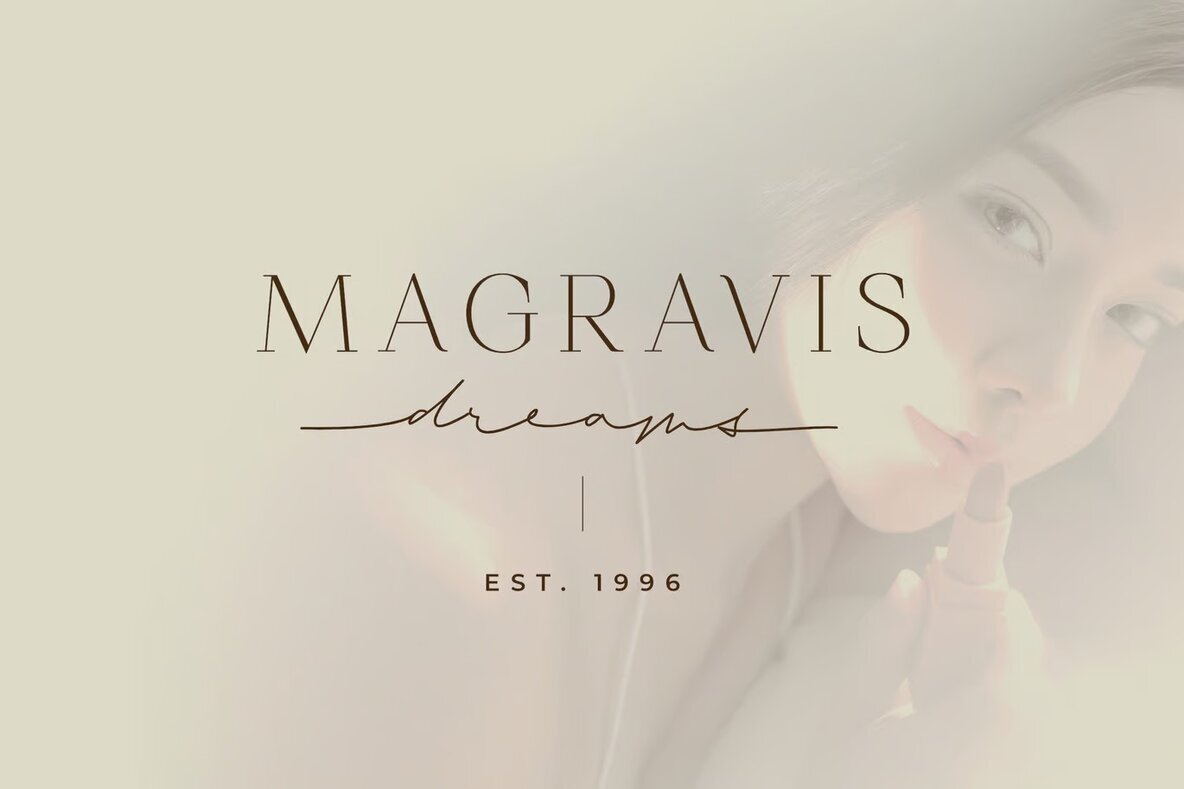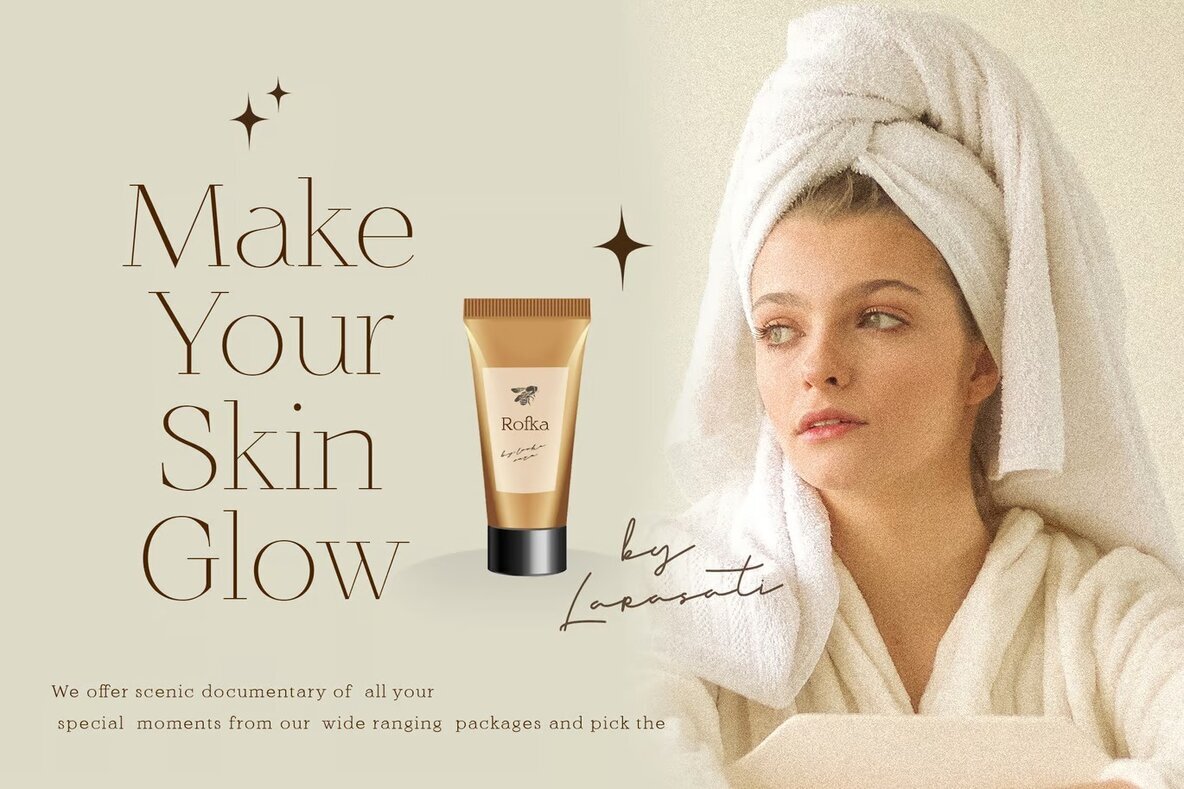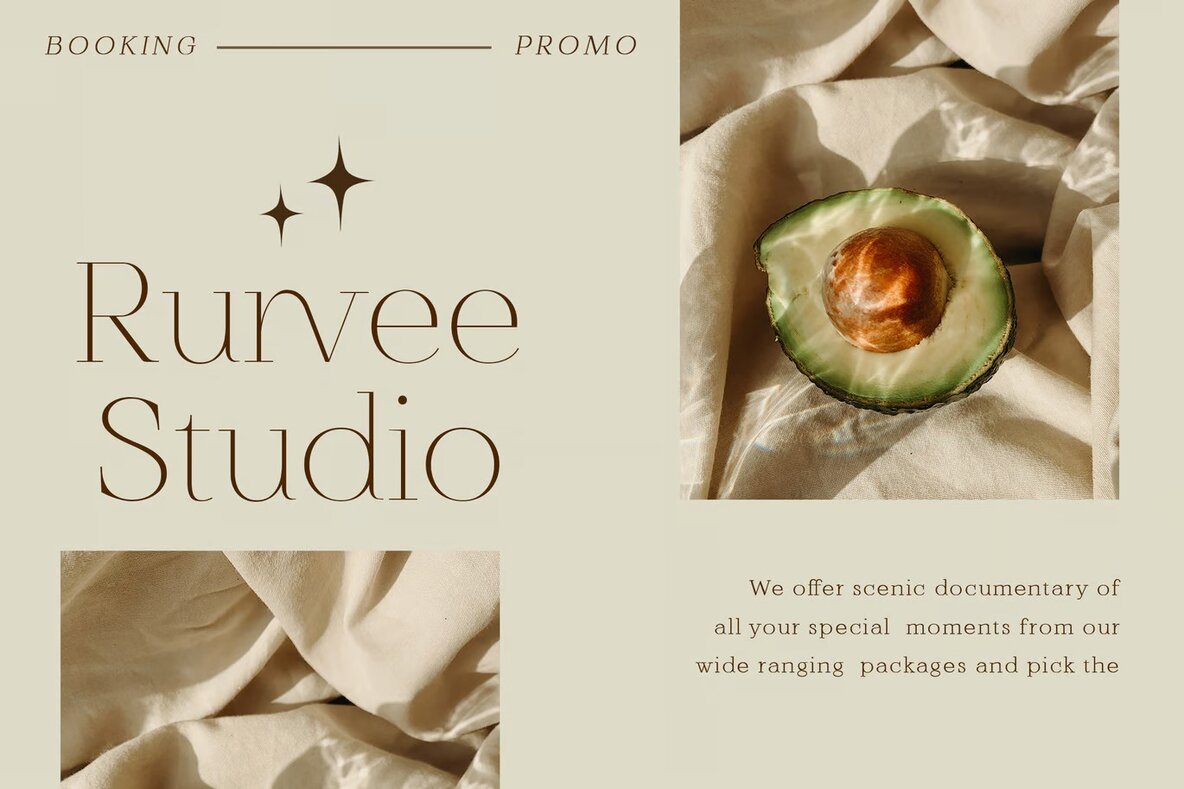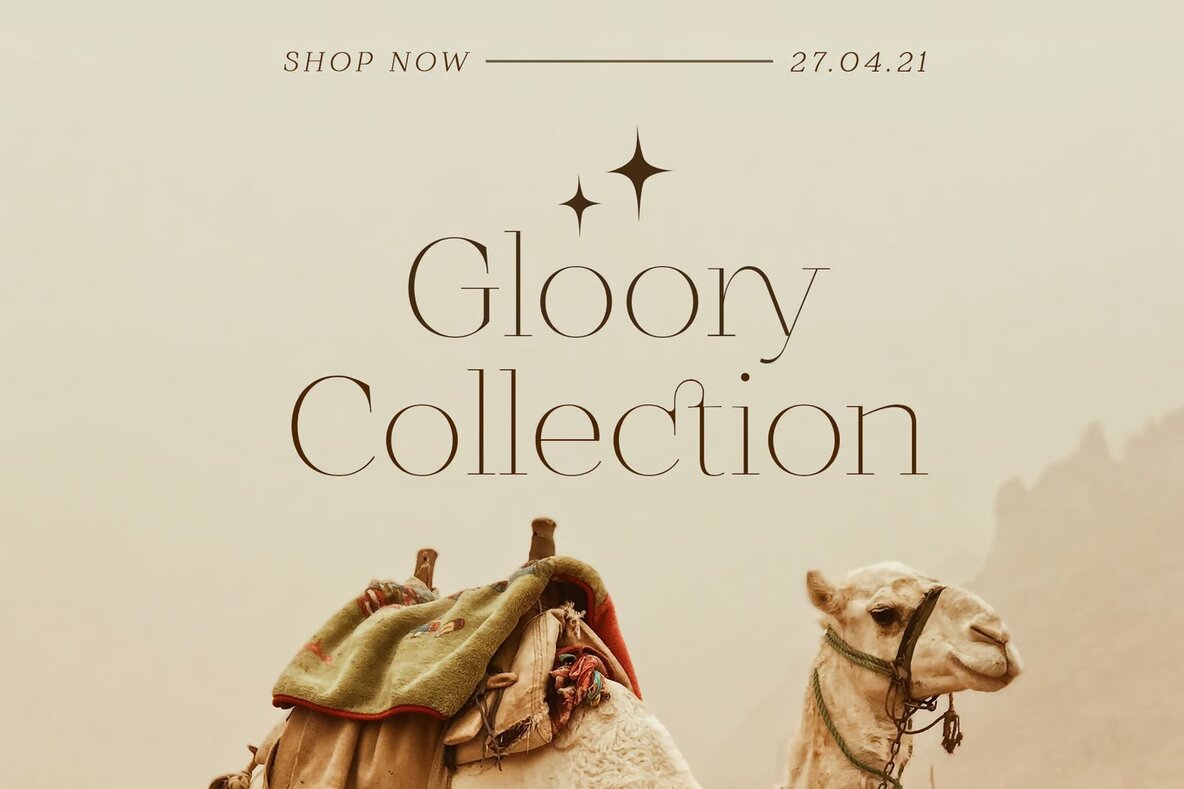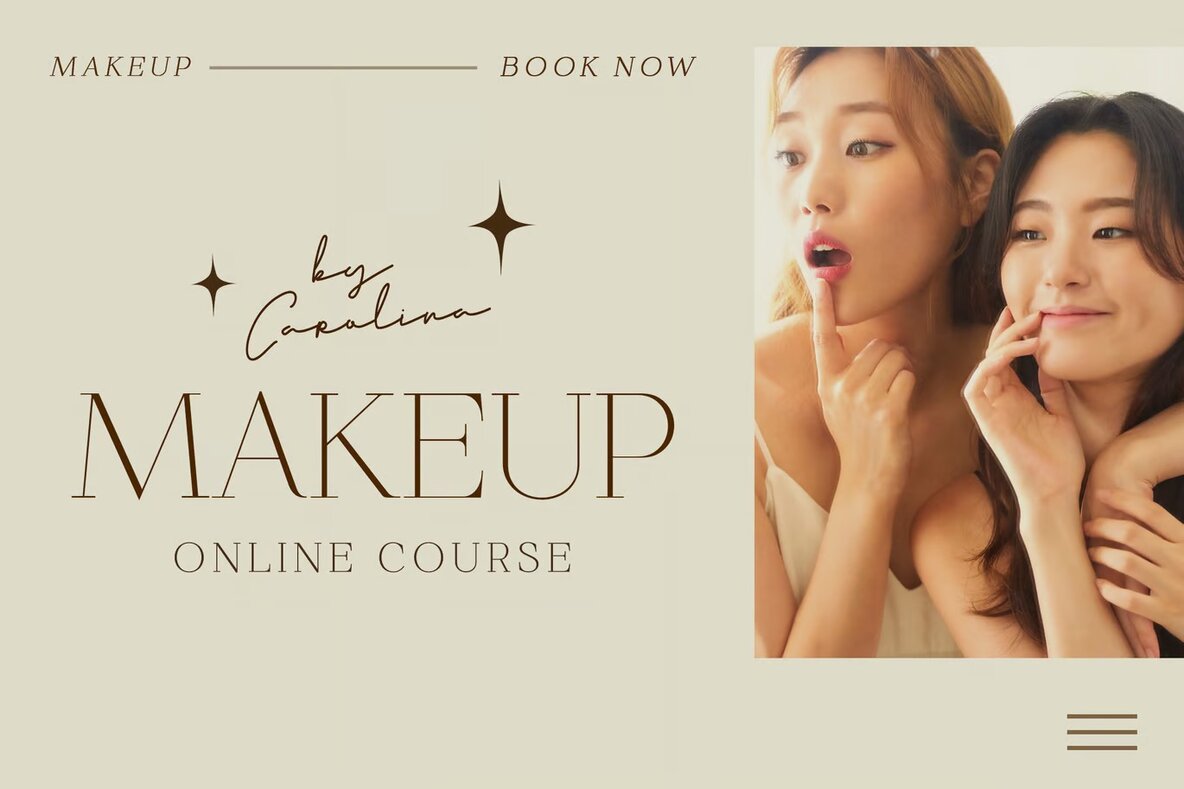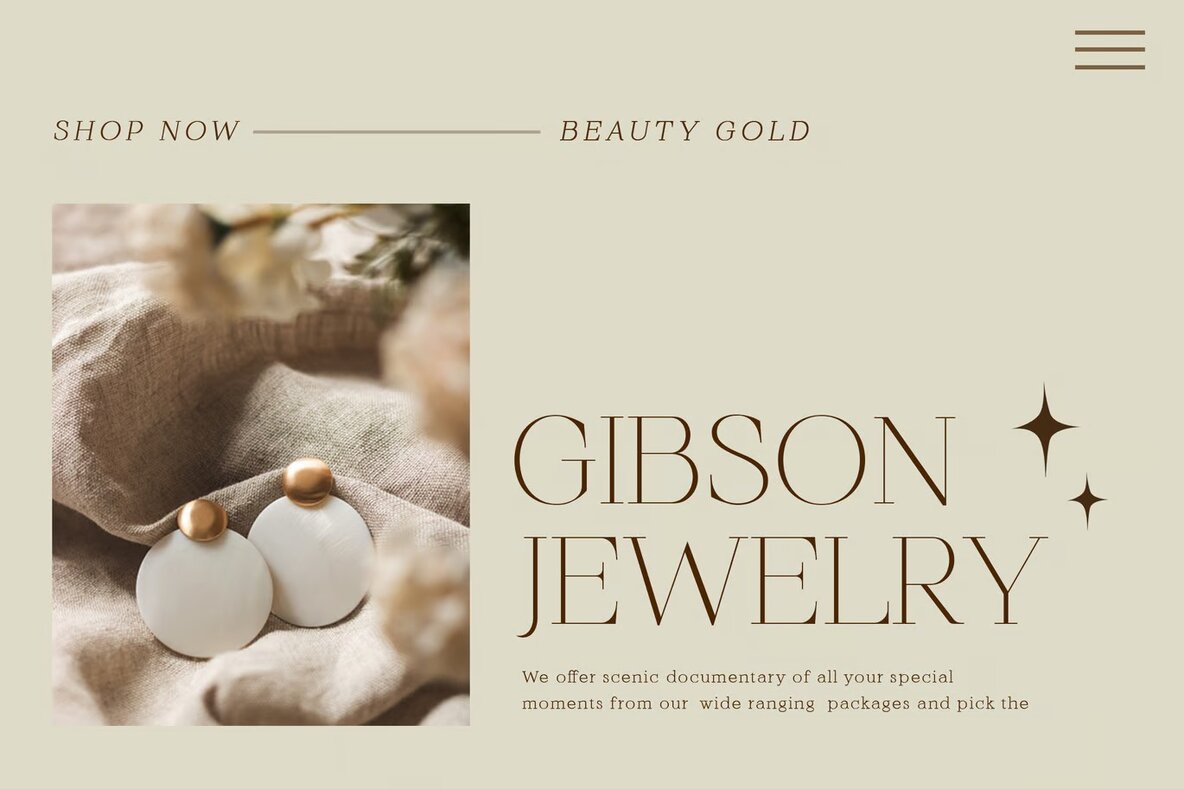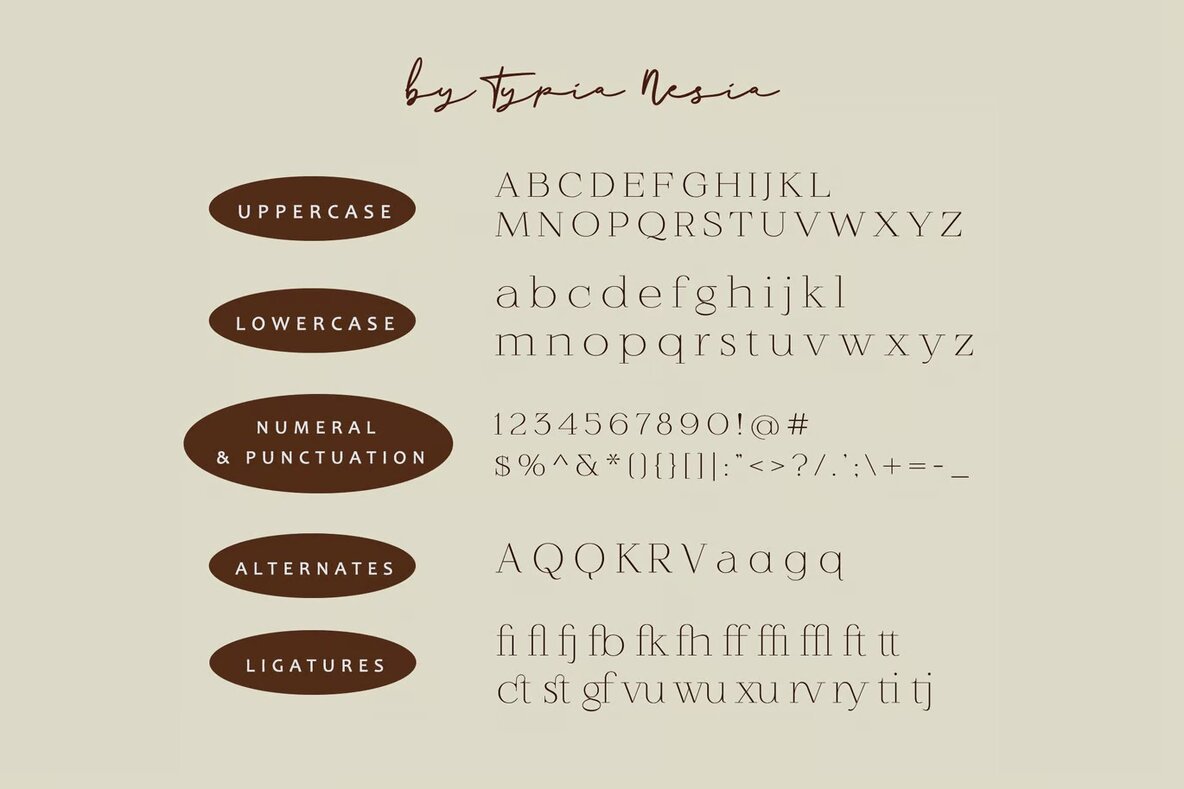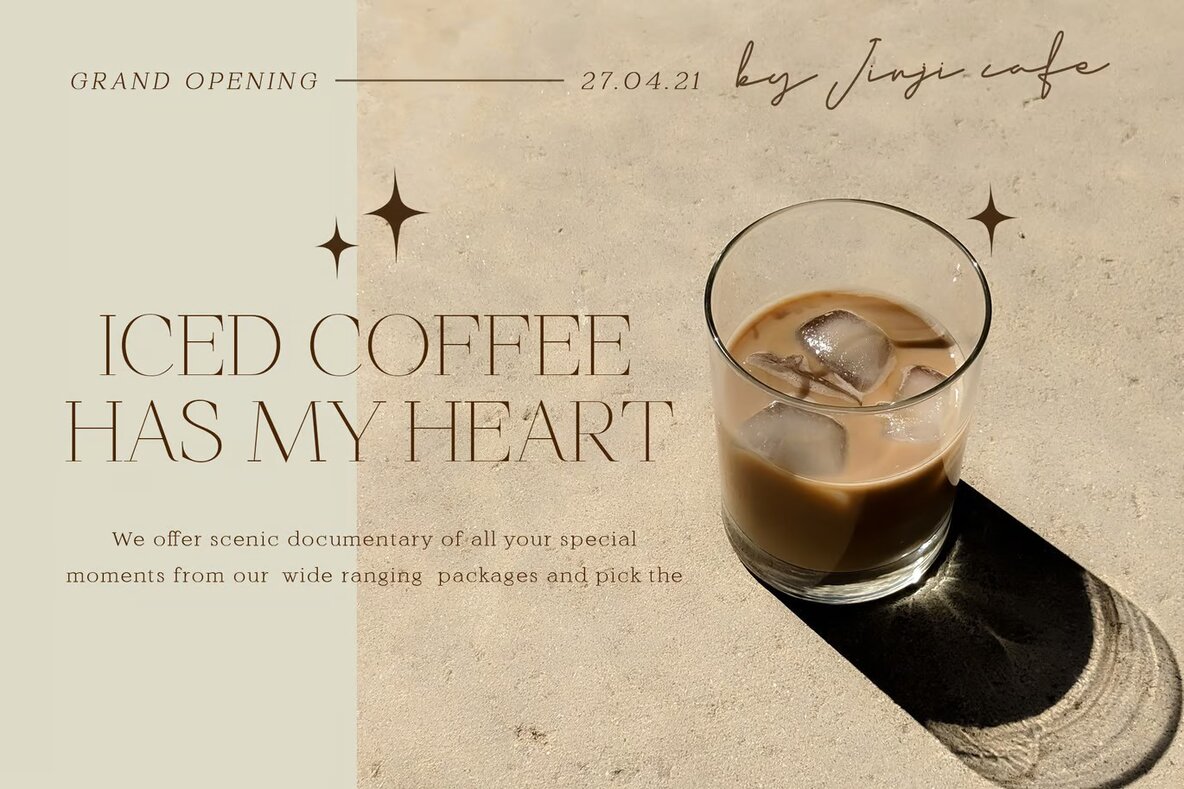
Allegory Font
Allegory Regular
Allegory is a feminine serif font that exudes elegance and beauty, perfect for a wide array of design projects. Its unique blend of softness and sophistication makes it an excellent choice for creating luxury logos, branding initiatives, and classy editorial layouts. With the inclusion of alternates and ligatures, Allegory enables you to craft exquisite typography designs tailored to your vision, making it ideal for fashion promotions, cosmetic branding, and women's magazines.
Whether designing for art galleries, architecture histories, or boutique brands, this font delivers a touch of refinement that enhances any project. Allegory is also well-suited for modern advertising design, stationery, and blog layouts. Use it to add a timeless flair to card invitations, art quotes, home decor, and book covers. The font's versatility extends to special events and numerous other applications, making it a valuable asset in any designer's toolkit.